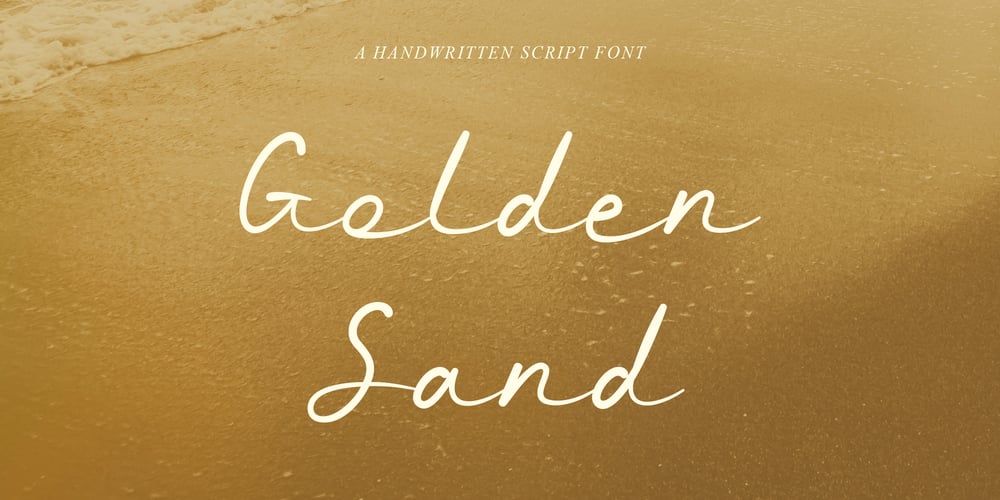
Golden Sand Font Family was designed by Fidan Aslanova and published by Fidan Fonts. Golden Sand contains 1 styles and family package options. Inspired by the retro cars/motorcycles, desert and wild west the Golden Sand script stays classy and elegant.It’s a handwritten font which includes full set of uppercase and lowercase basic characters, multilingual symbols, numerals, punctuation and ligatures.It’s works perfectly for handwritten quotes, greeting cards, posters, branding, book cover designs, packaging, wedding stationery, album covers, social media posts and many more. Latin-based Language Support.If you want to type with stylistic ligatures make sure you have them turned on (use a capable software like Photoshop, Illustrator, InDesign, Word, Pages etc). Note: If you don’t use this font with these programs stylistic ligatures won’t work.Happy creating!